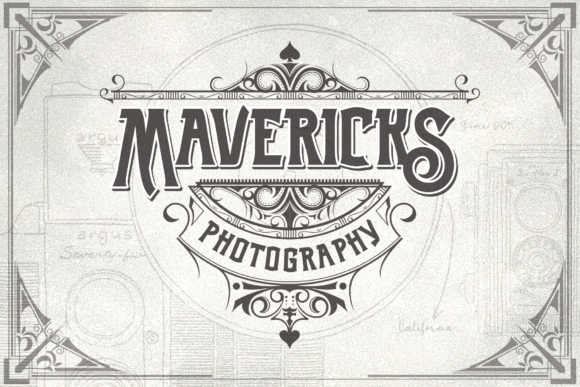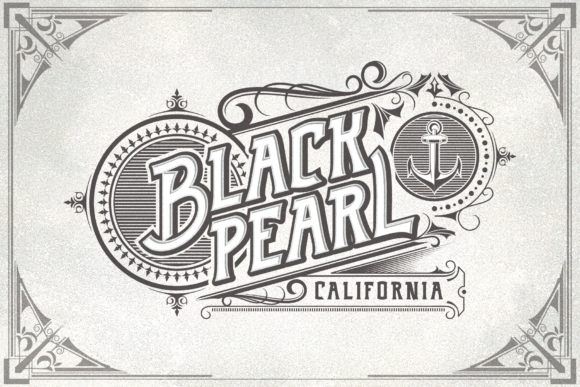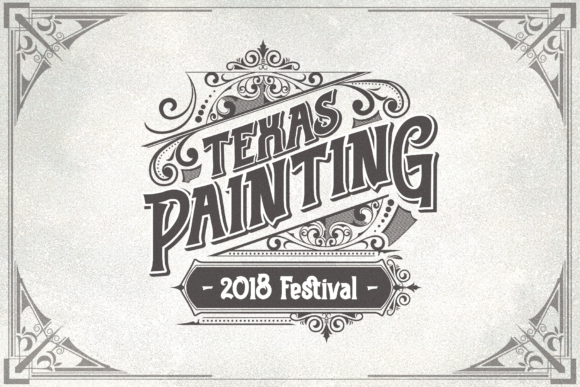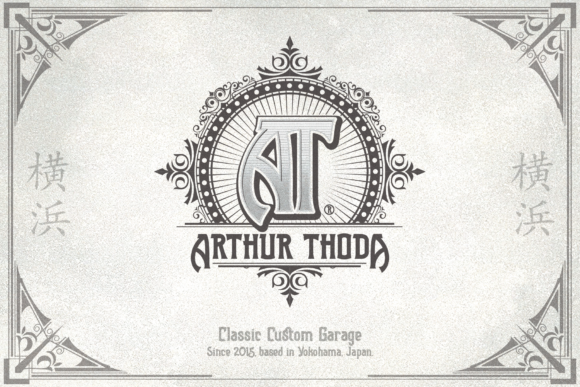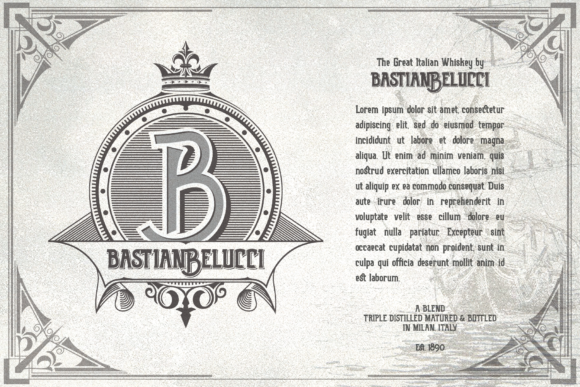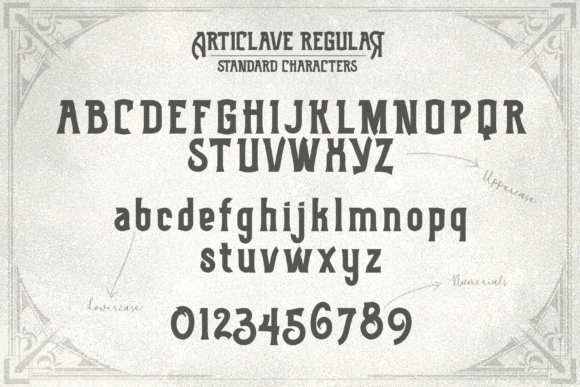
Introducing Articlave Font: Elevate Your Designs with a Touch of Vintage Elegance
Are you on the hunt for a font that can add a dash of sophistication and a pinch of nostalgia to your designs? Look no further than the Articlave Font. This stunning display font is not just any ordinary typeface; it’s a versatile tool that can transform your creative projects with its unique vintage charm. In this article, we’ll dive deep into the features of the Articlave Font, exploring its styles, uses, and the extra goodies it comes with.
The Articlave Font: A Vintage Charm with Modern Versatility
The Articlave Font is an amazing display font that stands out for its striking vintage look and unique feel. It’s perfect for designers and crafters who aim to create designs that are not only visually appealing but also carry a story of their own. Whether you’re working on a branding project, a website design, or crafting beautiful digital art, the Articlave Font can be your go-to choice.
Three Styles to Spark Your Creativity
One of the standout features of the Articlave Font is that it comes in three distinct styles. This variety gives you the opportunity to create unique designs every time you use it. You can experiment with different styles to match the tone and theme of your project. Whether you need a font that’s bold and eye-catching or subtle and elegant, the Articlave Font has got you covered.
Beyond Typography: 4 Extra Vector Ornaments
To add more value to this fantastic font, it comes with a bonus: 4 extra vector ornaments in EPS format. These ornaments can be used to further enhance your designs, adding an extra layer of detail and sophistication. They are versatile and can be applied across various design projects, from stationery and packaging to web graphics and social media posts.
Why Choose Articlave Font?
So, what makes the Articlave Font a preferred choice for designers and crafters? Here are a few reasons:
- Vintage Appeal: In a world where modern and minimalist designs are dominating, the Articlave Font offers a refreshing change with its vintage appeal.
- Versatility: With three styles at your disposal, you have the flexibility to choose the one that best fits your project’s requirements.
- Unique Designs: The font’s unique feel ensures that your designs stand out from the crowd.
- Easy to Use: The Articlave Font is easy to integrate into your projects, making it a hassle-free addition to your design toolkit.
- Bonus Ornaments: The inclusion of vector ornaments adds immense value, providing you with more creative options.
How to Make the Most of Articlave Font
To truly leverage the potential of the Articlave Font, here are a few tips:
- Experiment with Styles: Don’t be afraid to mix and match the different styles to create something truly unique.
- Pair it Well: Choose complementary fonts that enhance the vintage feel of the Articlave Font.
- Utilize Ornaments: Incorporate the vector ornaments to add intricate details to your designs.
- Play with Colors: Experiment with different color schemes to find the one that best brings out the vintage charm of the font.
The Articlave Font is more than just a display font; it’s a tool that can elevate your designs to new heights. With its vintage charm, modern versatility, and the bonus of extra vector ornaments, it’s an excellent addition to any designer’s or crafter’s toolkit. Whether you’re looking to create stunning visual content or simply want to explore new creative avenues, the Articlave Font is sure to inspire and deliver. So, why wait? Dive into the world of Articlave Font today and discover a new dimension of design possibilities.